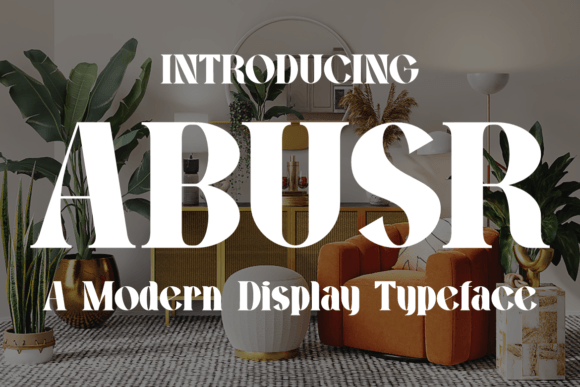
Enter the realm of Abusr Font, a typographic virtuoso that weaves sophistication into every character. Its refined strokes, reminiscent of a master calligrapher's touch, imbue your designs with a timeless allure.
Designed by the visionary maikofarazhatta, Abusr Font manifests a flawless synergy of elegance and precision. Each letterform is a testament to meticulous craftsmanship, embodying balanced proportions and impeccable alignment. Witness the artistry in every serif, the delicate curves that flow with grace, and the subtle nuances that elevate your designs above the ordinary.
Abusr Font's versatility transcends boundaries, making it an ideal companion for an array of creative endeavors. Its refined presence graces print designs with a touch of luxury, transforming promotional materials into captivating masterpieces, and elevating magazine layouts to the realm of artistic expression.
Unleash your creativity and embark on a typographic voyage with Abusr Font. Adorn your designs with its timeless beauty, let your words dance with elegance, and captivate your audience with the sheer brilliance of this font. Abusr Font stands ready to transform your creative visions into tangible, awe-inspiring realities.